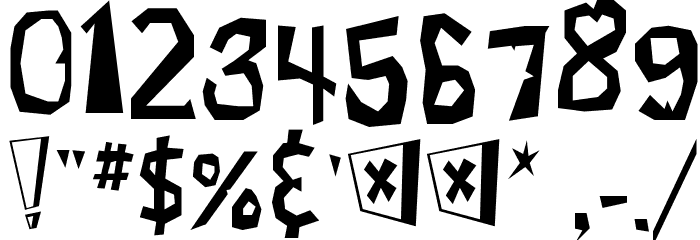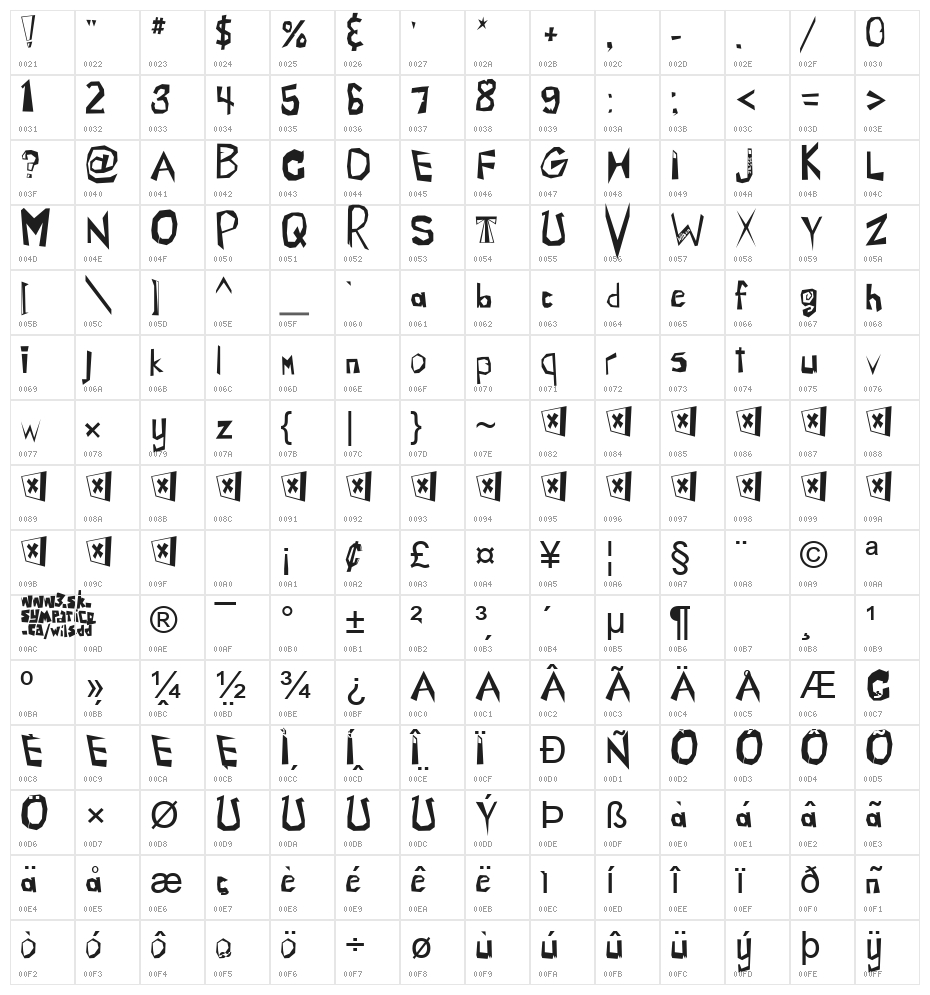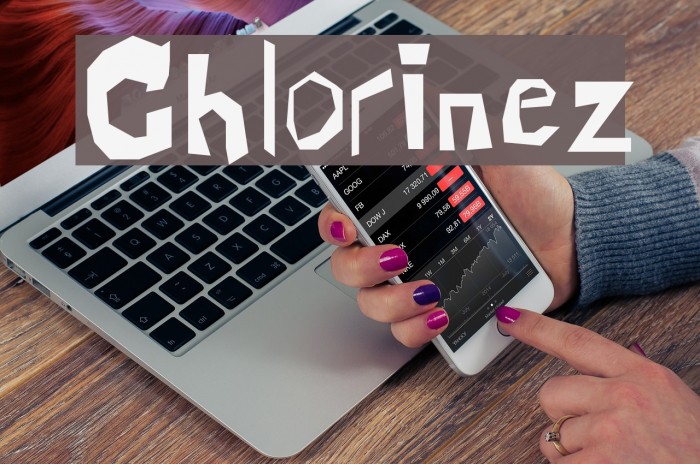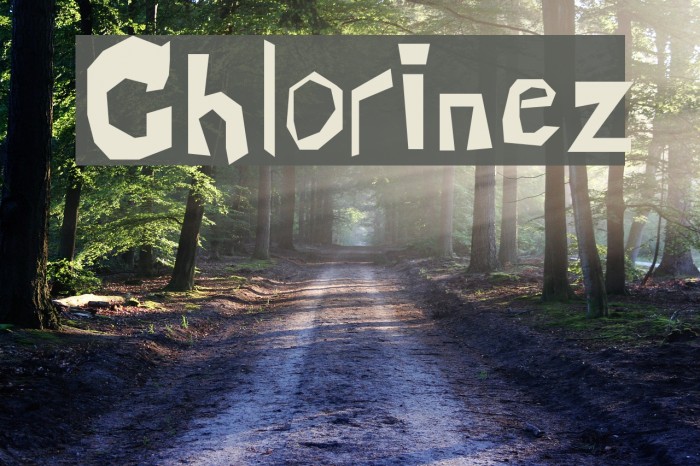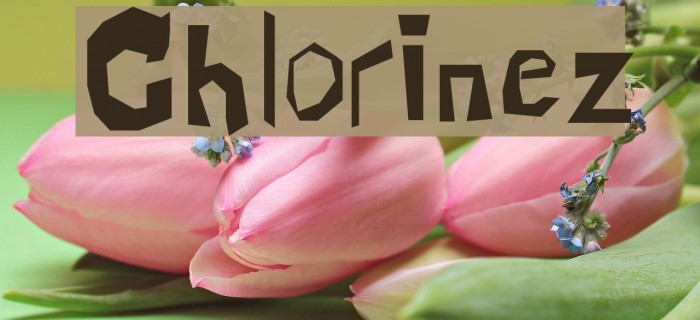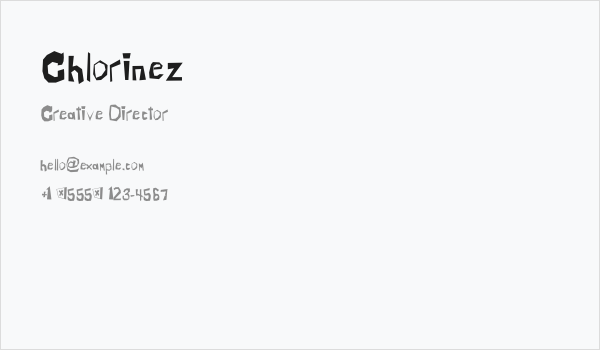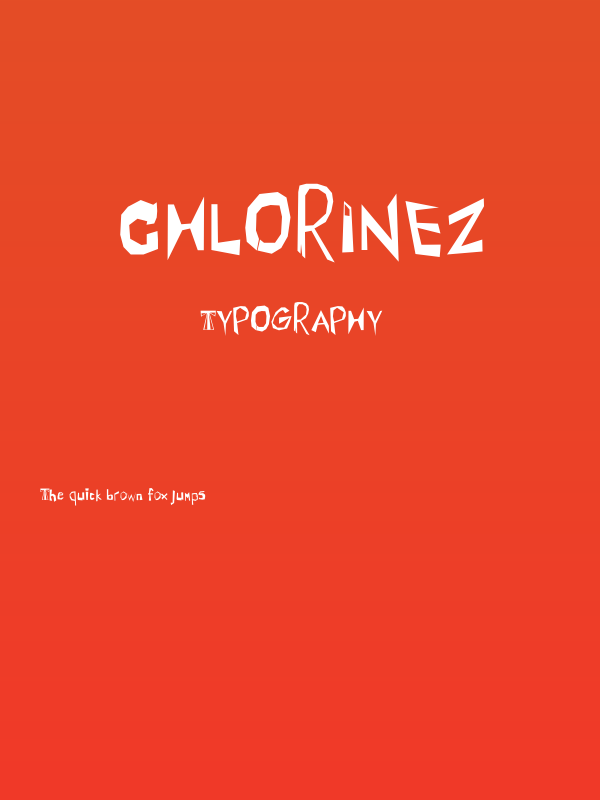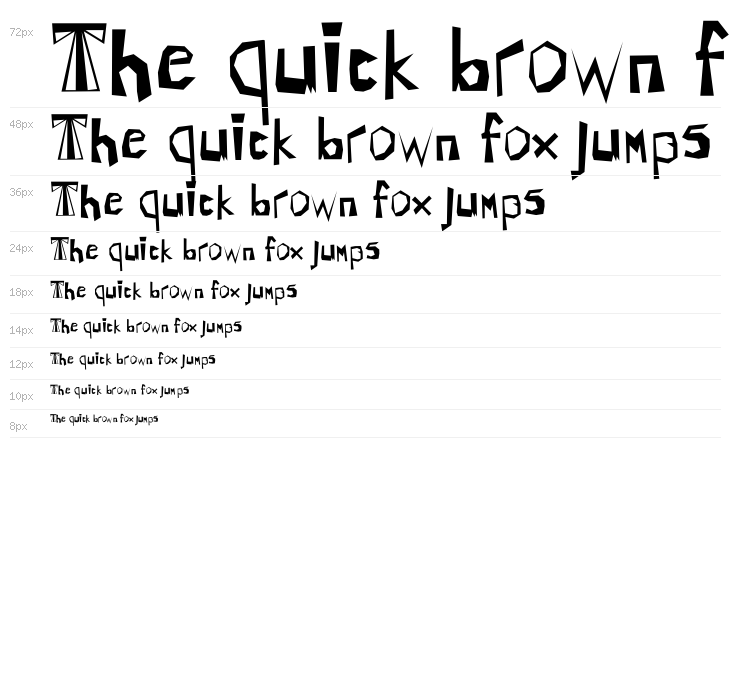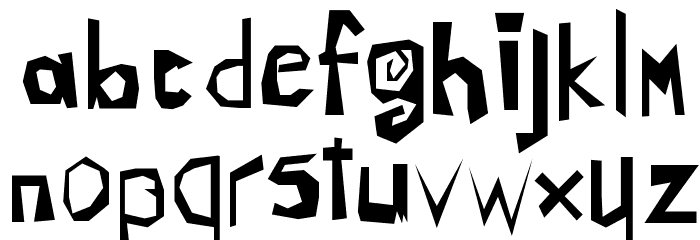
Chlorinez Font
Chlorinez Description
This font features a bold and edgy design with irregular, jagged edges that create a sense of movement and energy. The characters are uniquely shaped, with varying angles and thicknesses, giving them a hand-drawn, graffiti-like appearance. The uppercase letters are particularly striking, with some incorporating additional decorative elements, while the lowercase letters maintain a consistent style. The numbers and special characters follow the same dynamic aesthetic, making the font suitable for attention-grabbing designs.
| Overall Style | Modern, Urban |
| Proposed Projects | Ideal for urban-themed posters, album covers, streetwear branding, and edgy graphic design projects. |